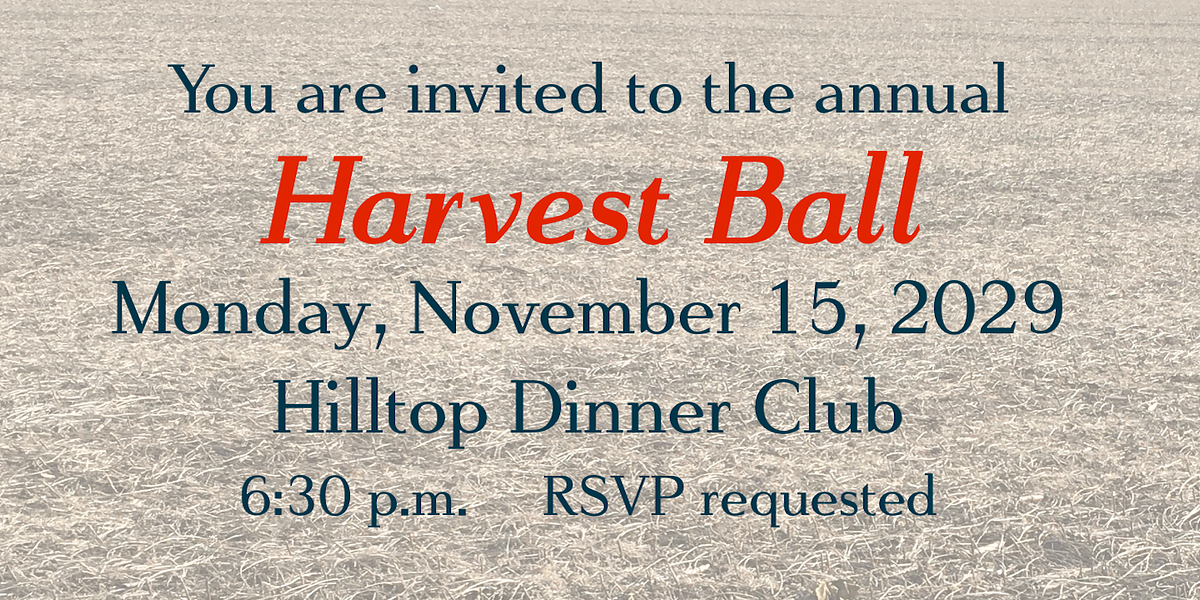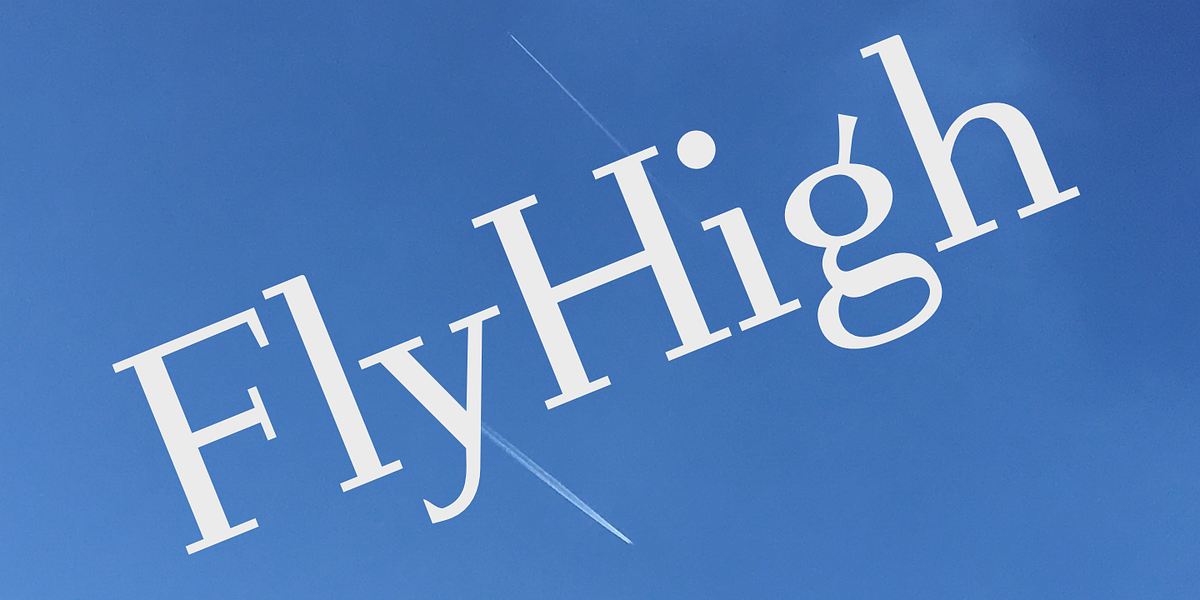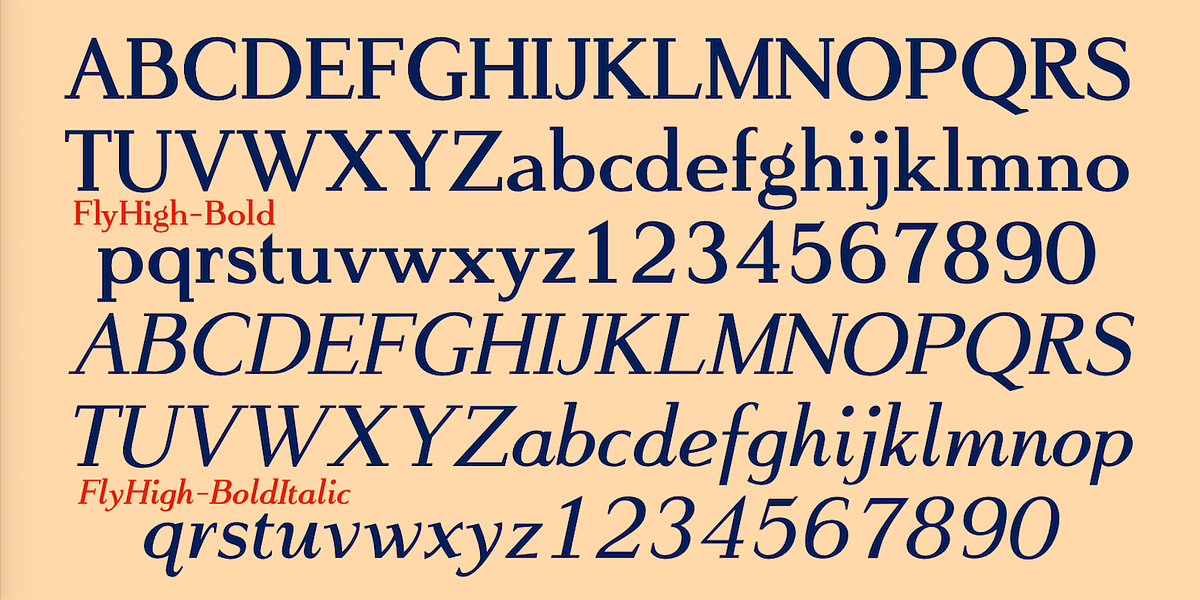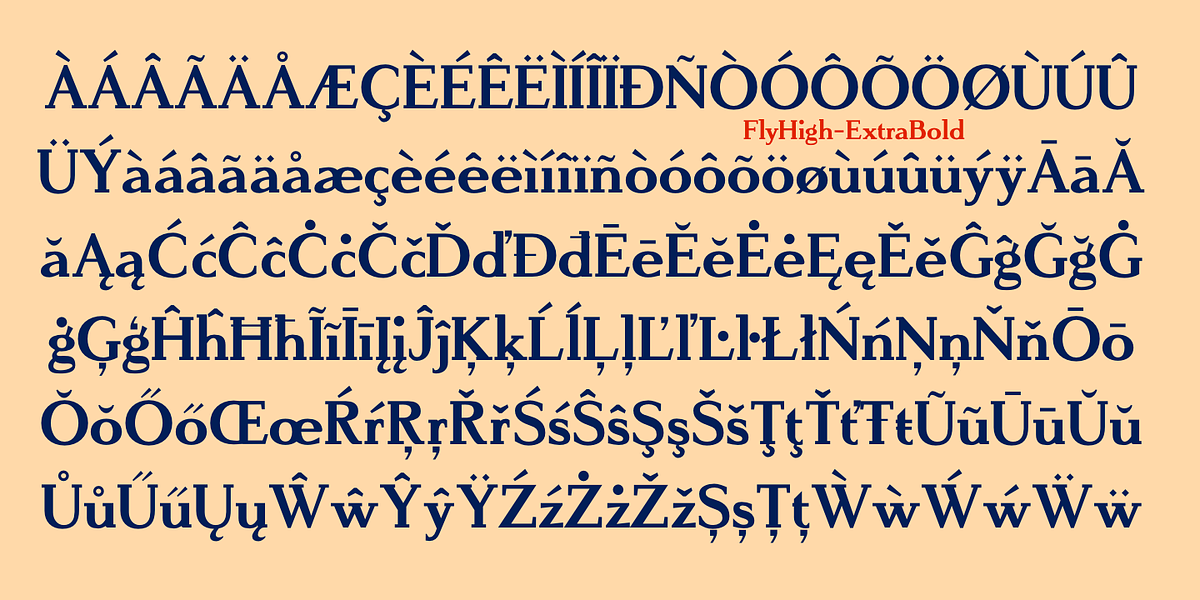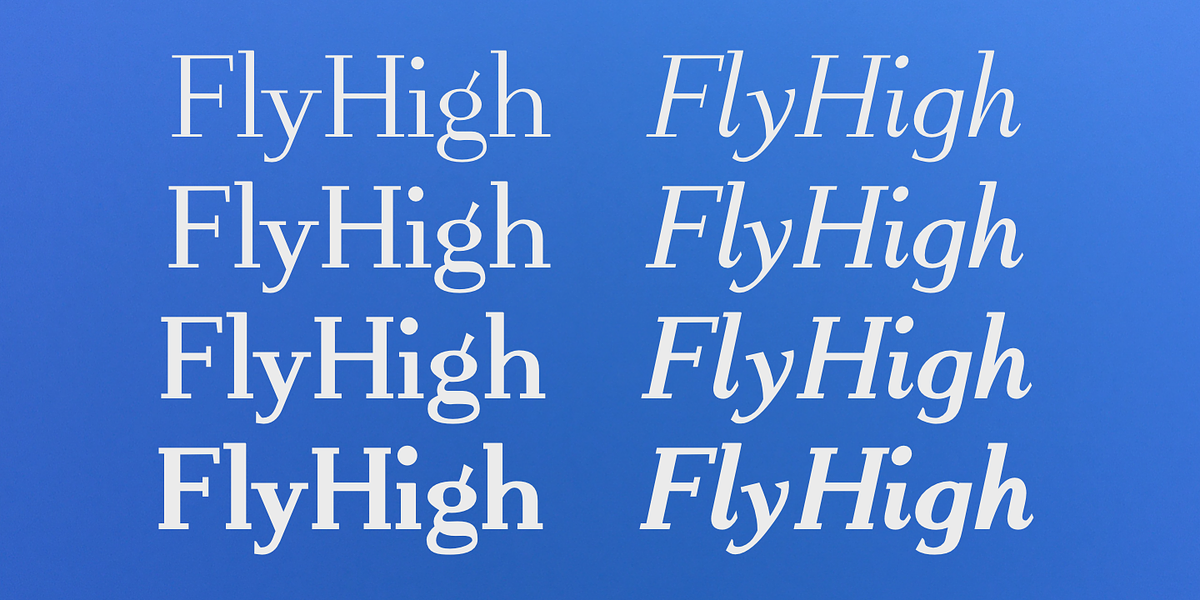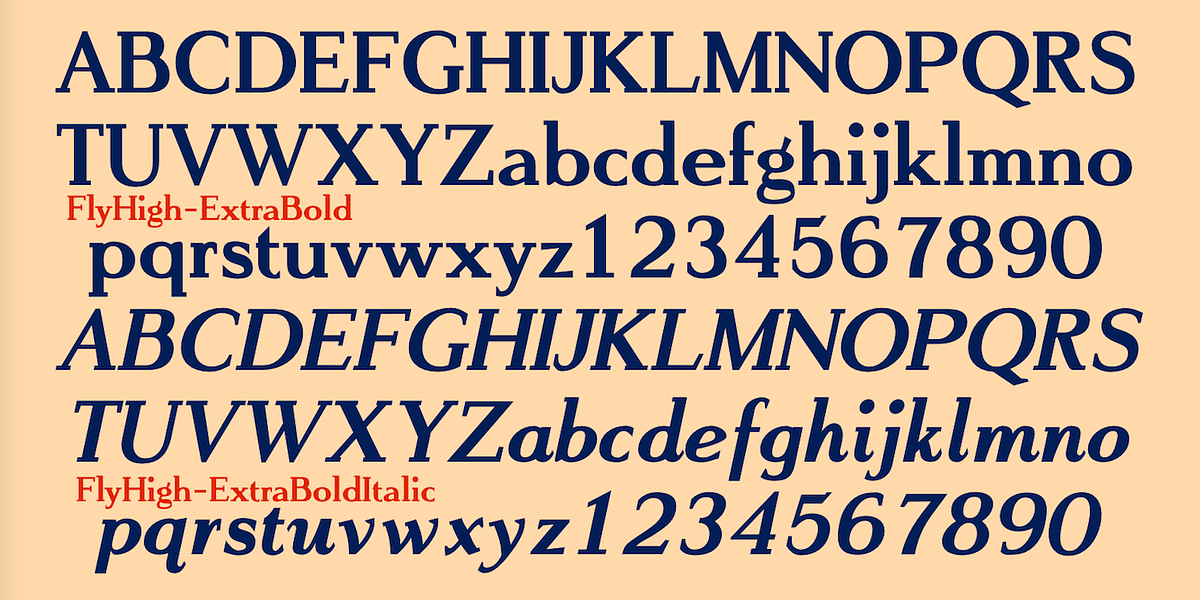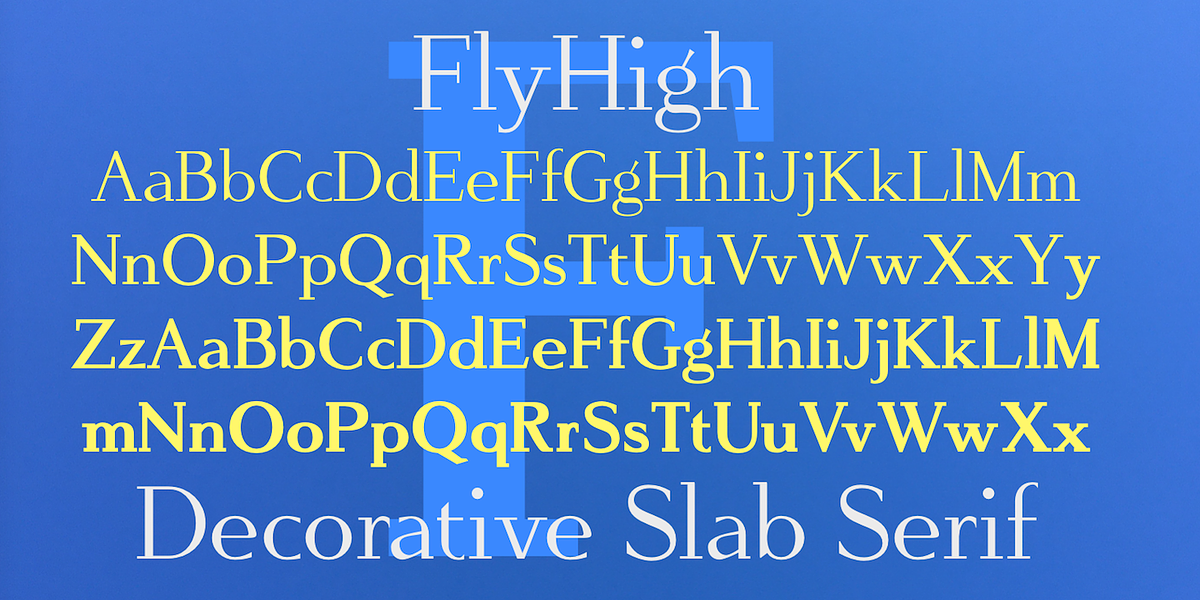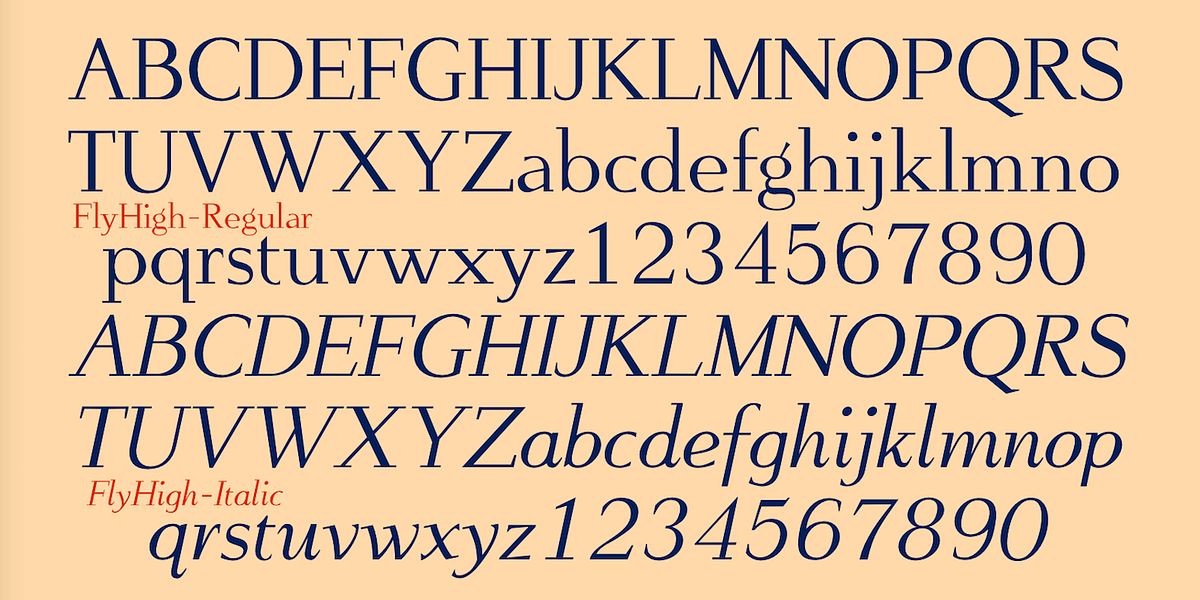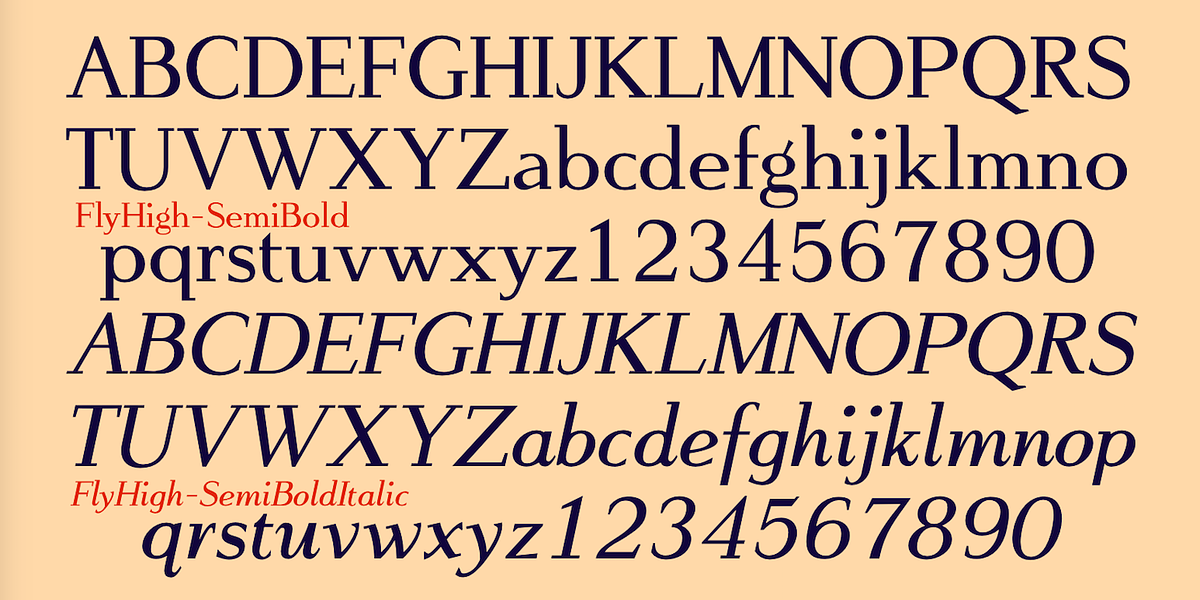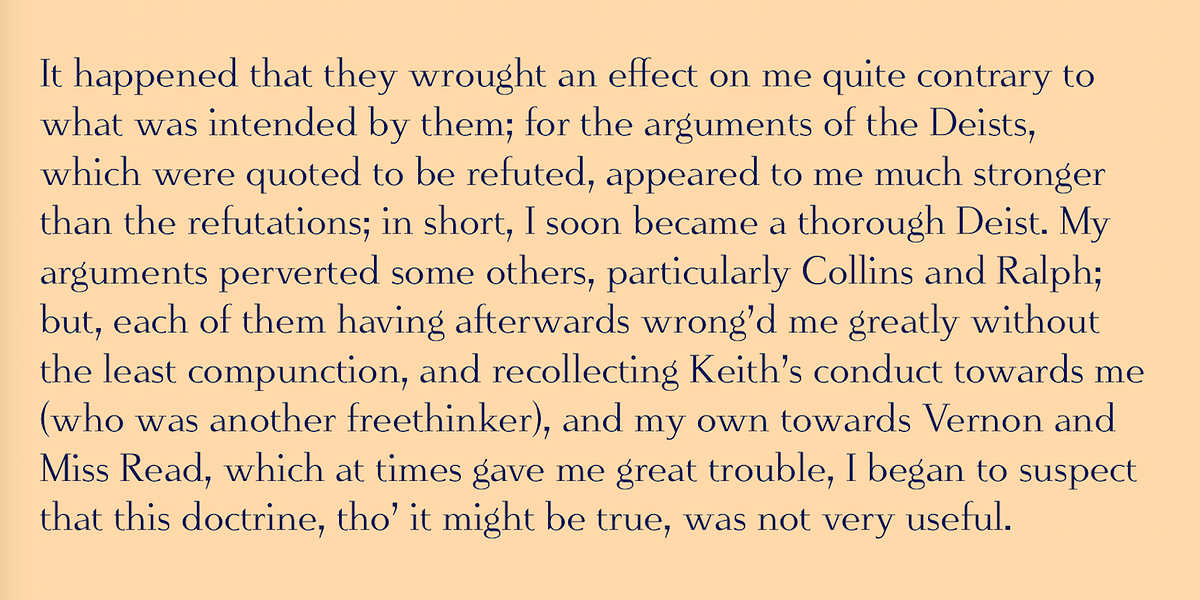
FlyHigh
FlyHigh is a decorative slab serif typeface characterized by its humanist design and low x-height. This makes it well-suited for display purposes like invitations rather than extended body text settings. It offers a range of weights from plain to extrabold, including italic variations.